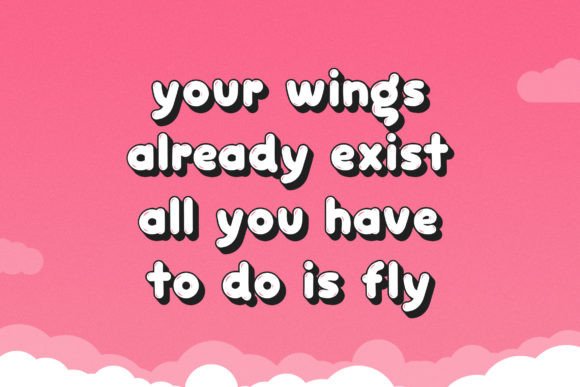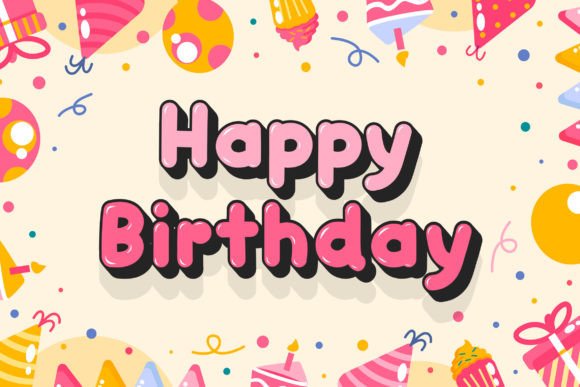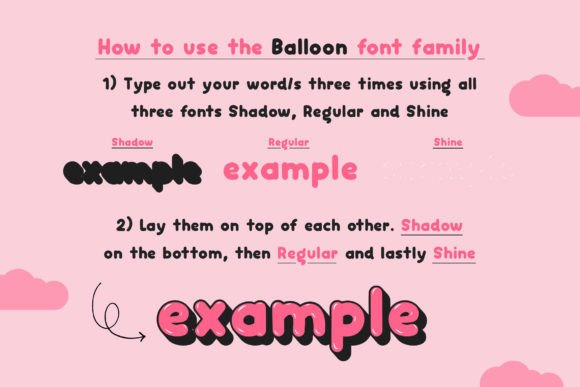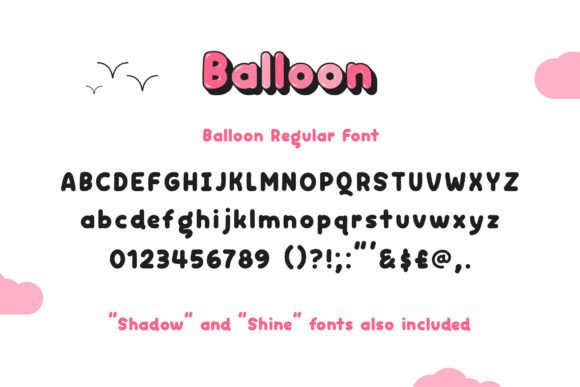
Let Your Creativity Soar with the Balloon Font
Have you ever found yourself stuck in a design rut, searching for that perfect font to bring your project to life? I know I have! It’s like trying to find the missing piece of a puzzle – until you stumble upon it, everything feels incomplete. One day, while browsing through font libraries, I discovered the Balloon Font, and it was love at first sight. This nicely-rounded and playful display font has been a game-changer for me, and I’m excited to share its magic with you.
The Balloon Font is designed to add dimension and cheerfulness to any text, making it perfect for creating outstanding designs. Its cartoon-like charm is infectious, and it’s easy to see why designers love it. Whether you’re working on a children’s book, a marketing campaign, or a social media post, the Balloon Font is a valuable addition to your design toolkit.
Key Features of Balloon Font
- Font Style: Balloon Font is a sans-serif font known for its playful and whimsical design, often used for titles, headings, and decorative text.
- Unique Characteristics: The font features distinctive rounded shapes, bold lines, and a vibrant color palette, making it ideal for creating eye-catching and playful designs.
Designer Review: Balloon Font
Overall, I think Balloon Font has a lot of potential, but it falls short in a few areas. Let’s start with the good stuff: ✨ The font’s playful and whimsical design makes it perfect for creating a fun and carefree atmosphere in any design project. The balloon-like shapes and flowing lines give it a unique and eye-catching look that’s sure to grab attention.
The font also comes in a range of weights and styles, making it easy to find the perfect fit for your project. From bold and bright to delicate and soft, there’s a version of Balloon Font to suit every need. Additionally, the font is highly customizable, allowing you to adjust the size, color, and spacing to get the desired look.
- Playful and whimsical design
- Range of weights and styles
- May not be suitable for formal or professional designs
- Can be difficult to read at small sizes
- Some characters may not be as well-designed as others
Overall, I think Balloon Font is a great choice for designers looking to add a touch of fun and playfulness to their projects. However, it may not be the best choice for more formal or professional designs. With a little creativity and experimentation, Balloon Font can be a valuable addition to any designer’s toolkit.
The Balloon Font is commonly used for:
- Creating playful and whimsical text effects
- Designing children’s book illustrations and educational materials
- Adding a touch of humor and personality to marketing materials and social media posts